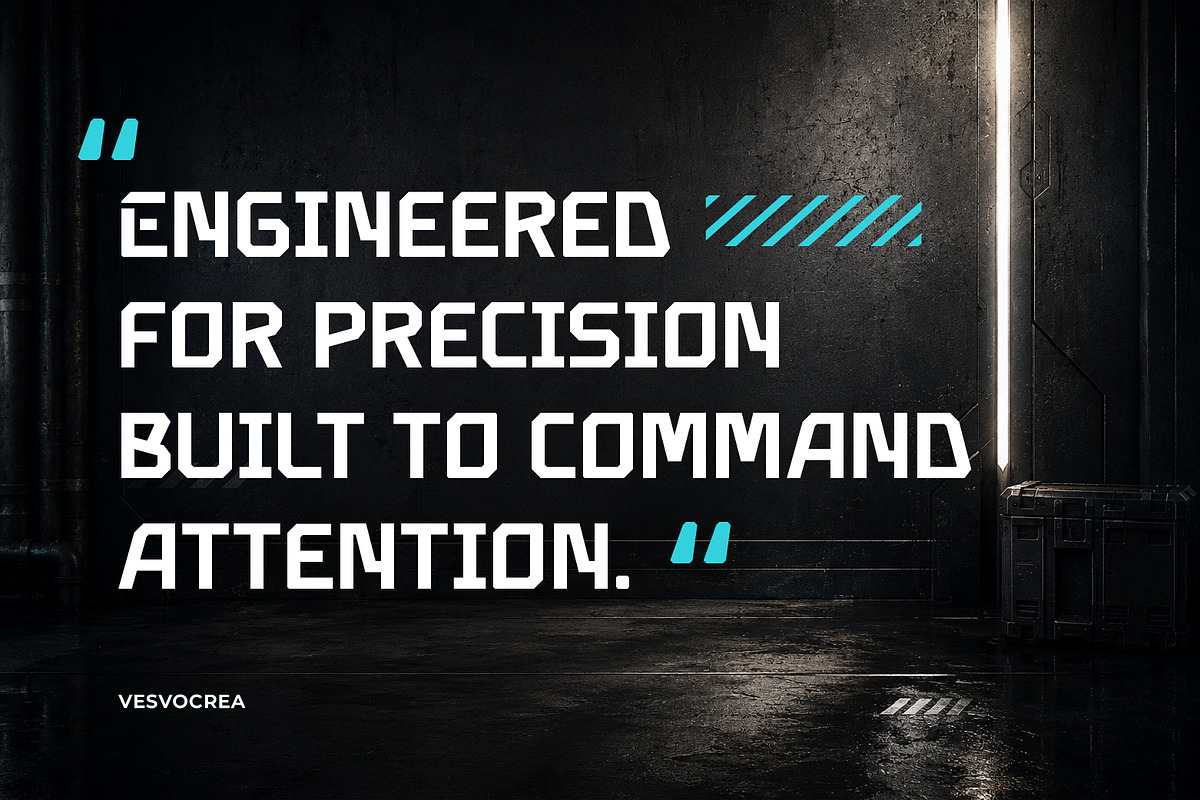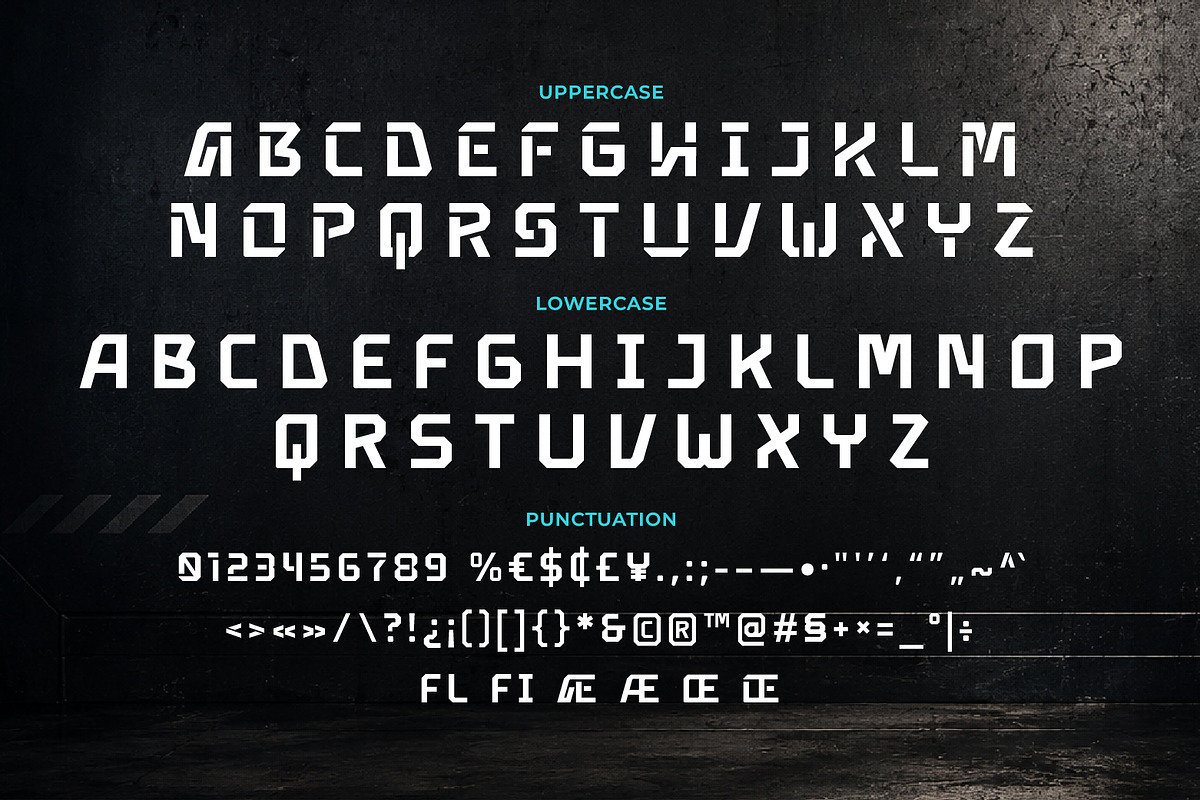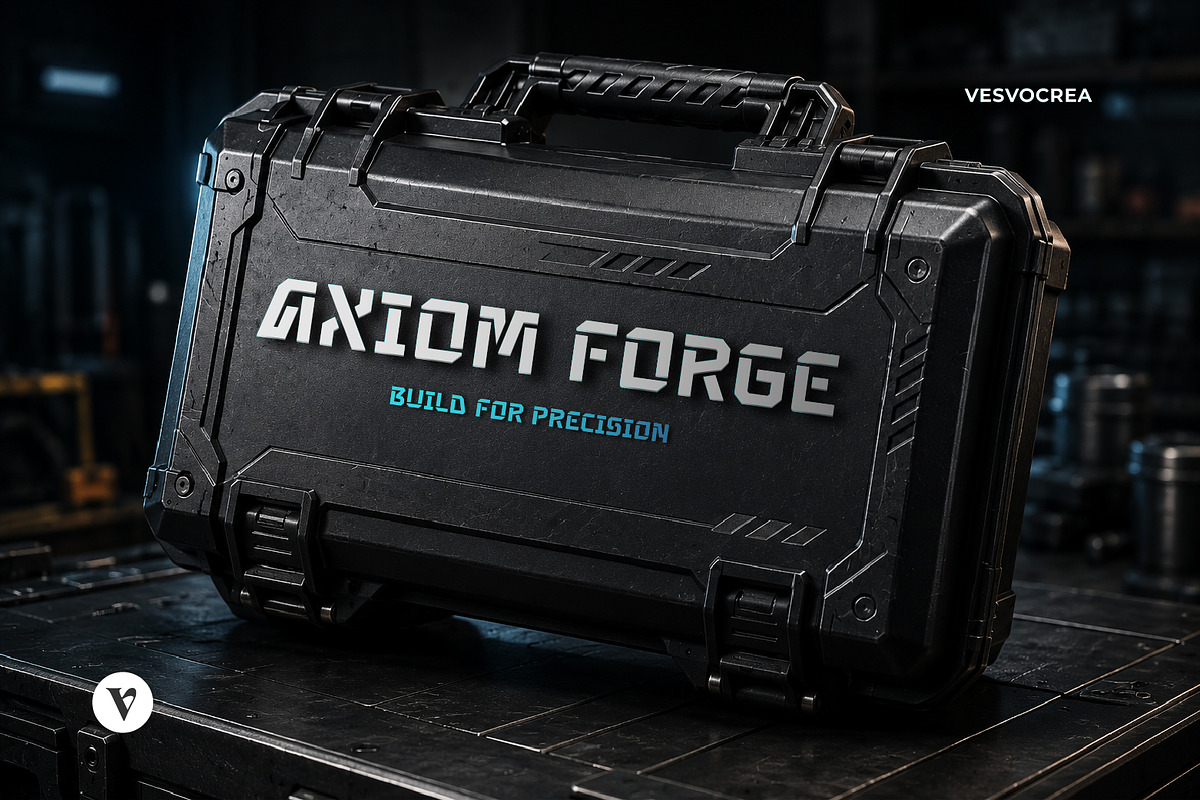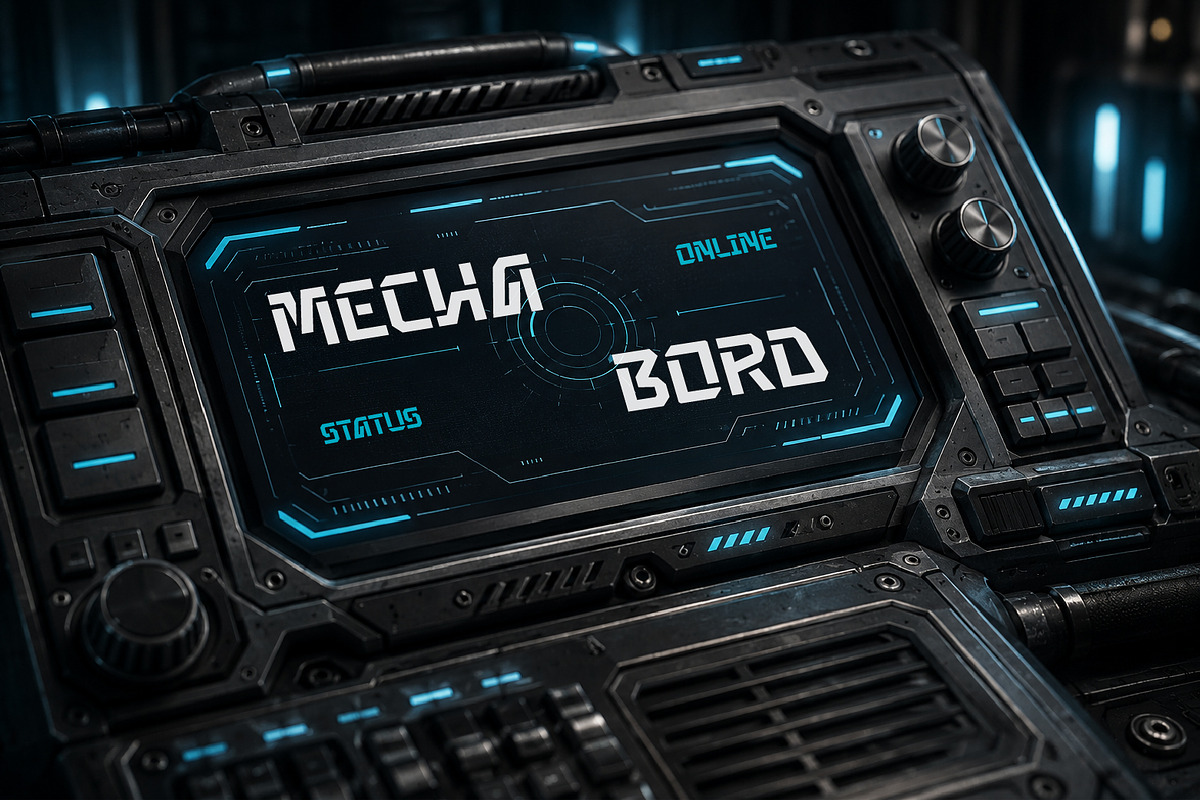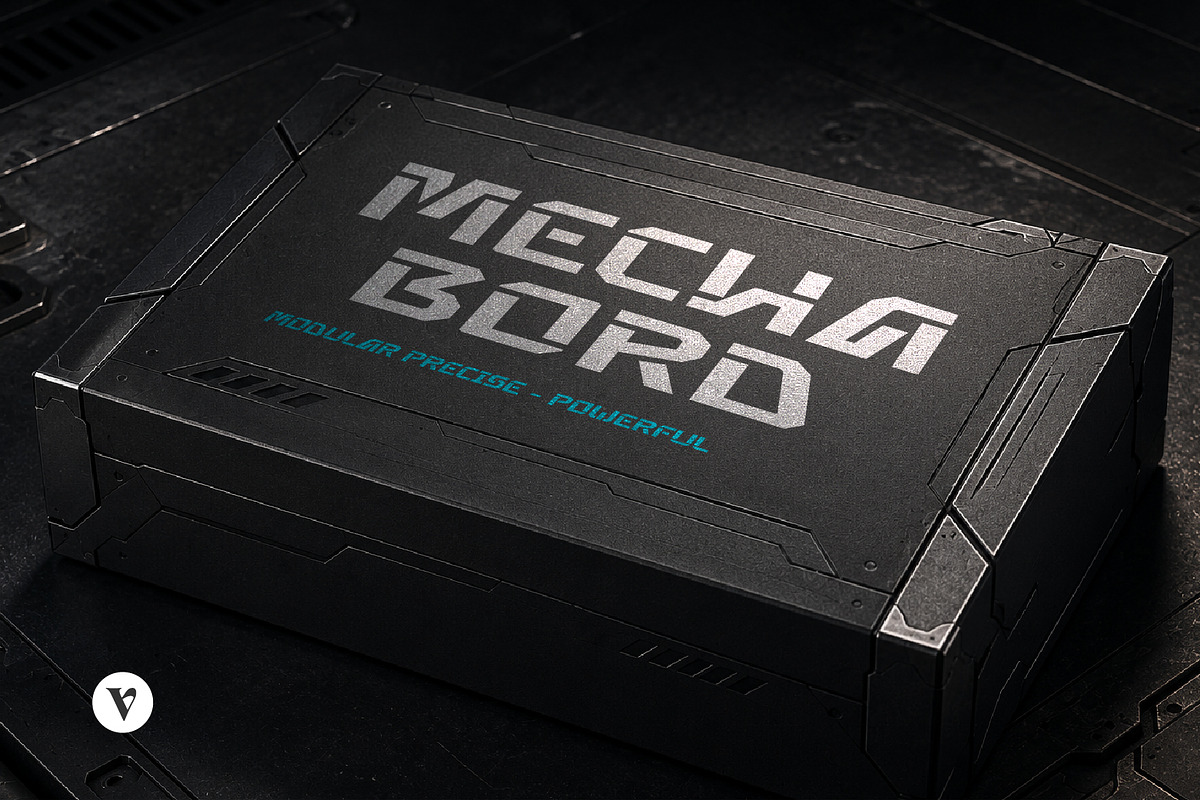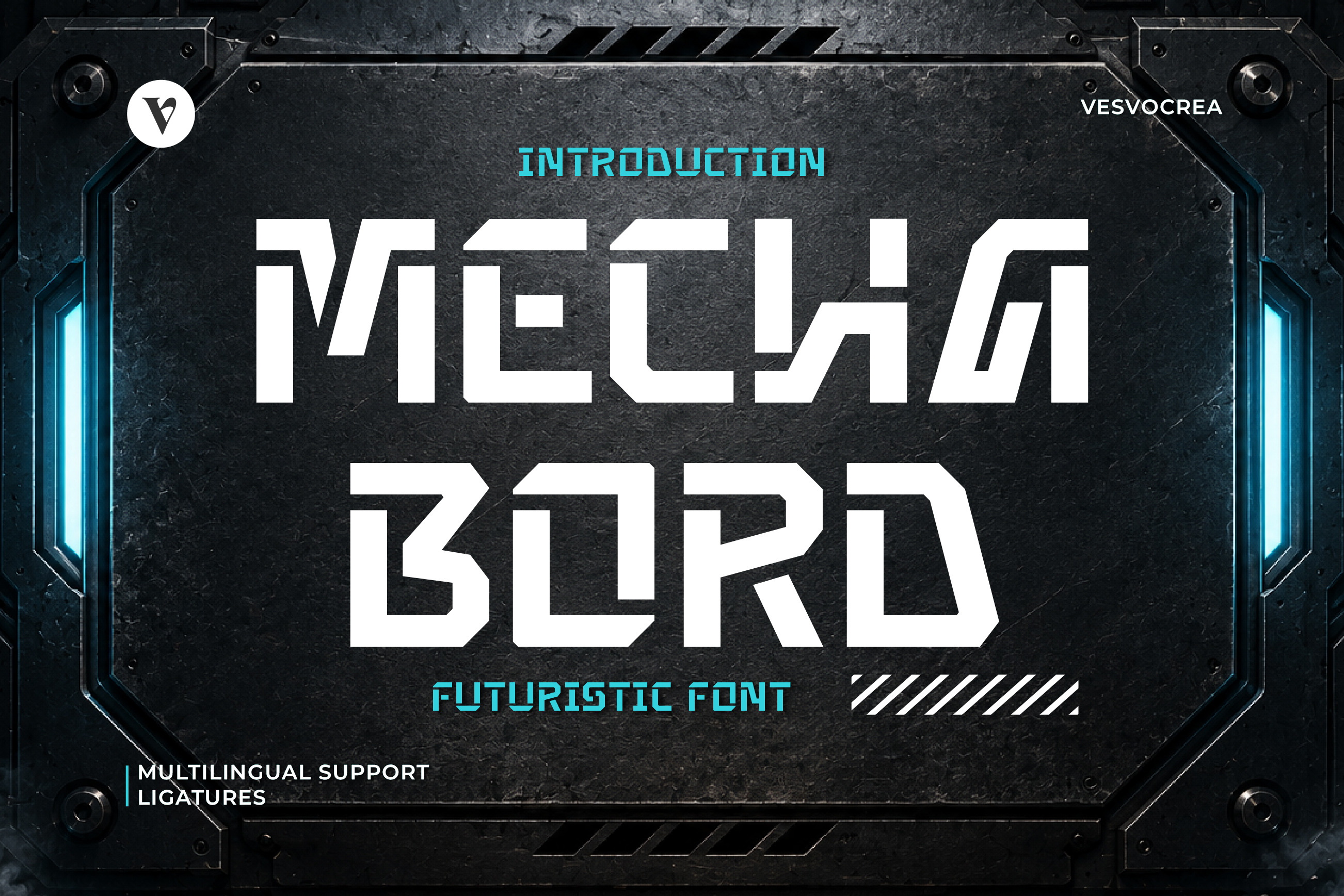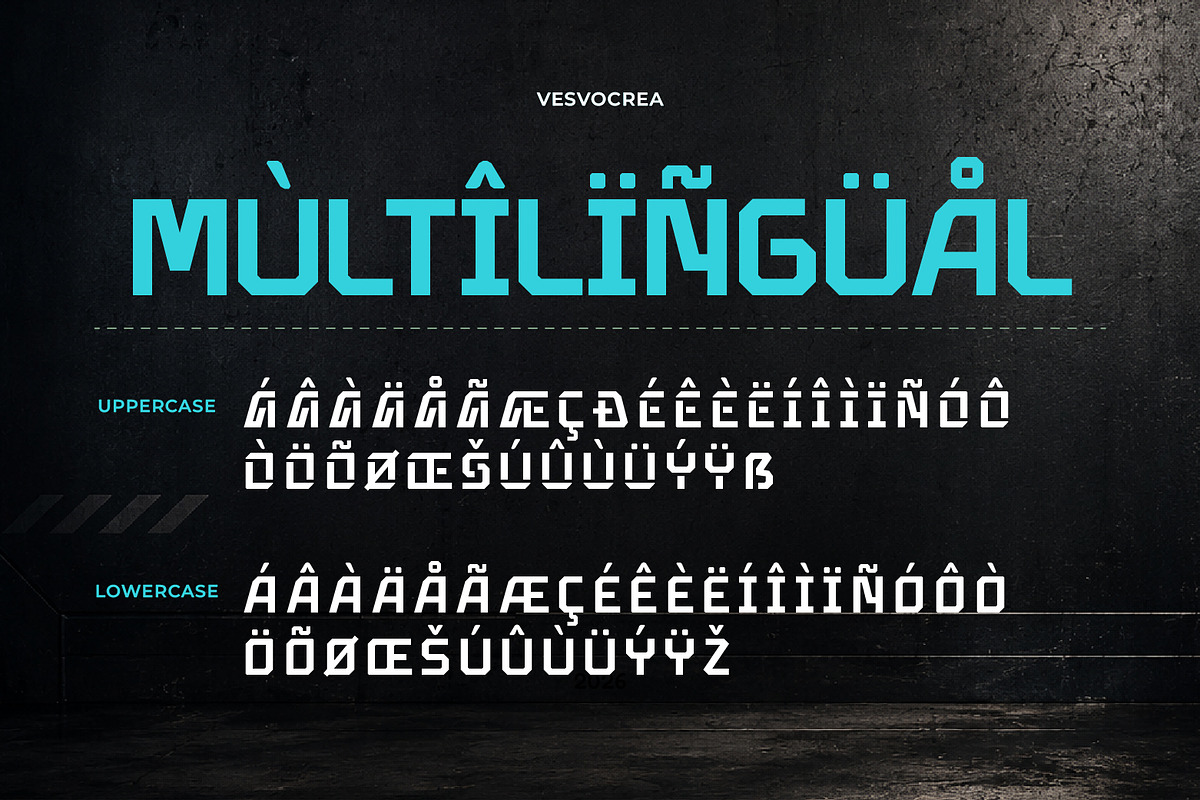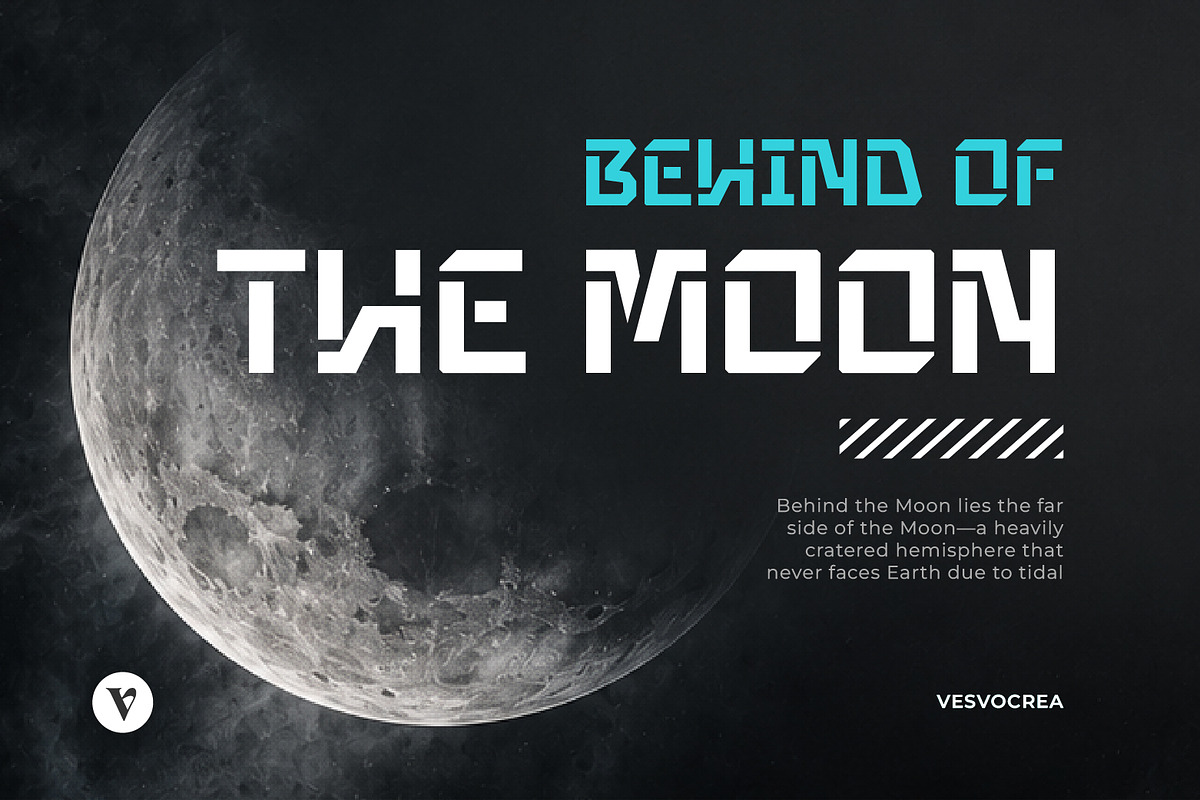
Mecha Bord - Futuristic Display Font
Mecha Bord is a futuristic tech display font with bold, geometric, and industrial letterforms that deliver a powerful sci-fi aesthetic. Inspired by cyber technology, robotics, and futuristic interfaces, this typeface is perfect for creating bold, high-impact designs with a modern mechanical feel.
Whether you're working on logos, branding, gaming projects, posters, product packaging, social media graphics, or other creative designs, Mecha Bord adds a strong futuristic character that commands attention.
\- Logos, branding, gaming, posters, packaging, social media graphics, merchandise, and more.
\- Uppercase & Lowercase
\- Numbers & Punctuation
\- Multilingual Support
This typeface has been carefully designed with attention to every detail, making it both versatile and enjoyable to use across a wide variety of creative projects.